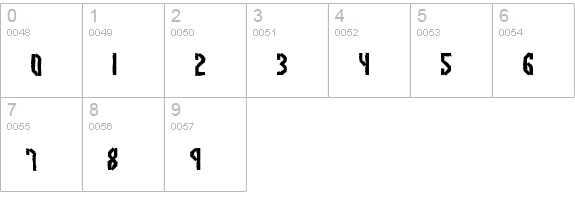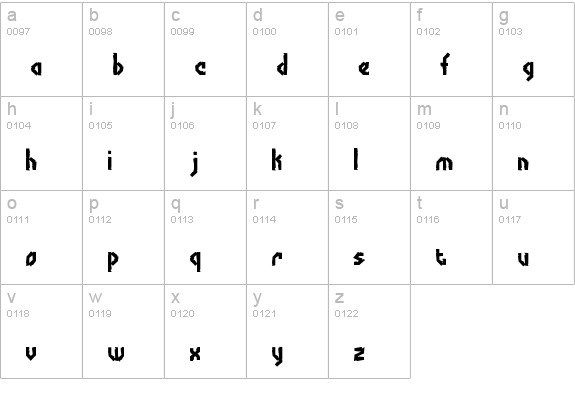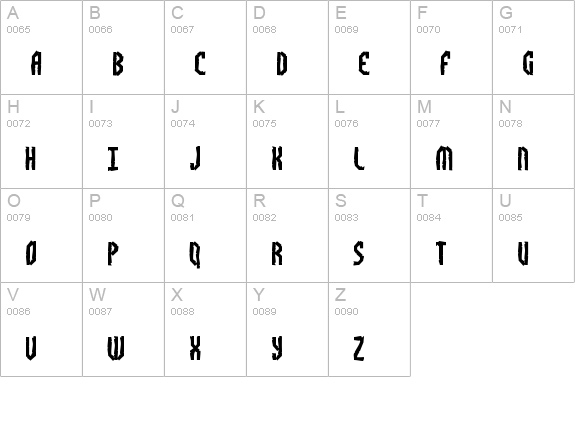
Bocuma Angle Dent BRK Font Details
Bocuma Angle Dent BRK font is a modern and stylish typeface that exudes sophistication and elegance. With its unique angles and sharp edges, this font is perfect for creating eye-catching designs and projects that demand a touch of flair. The bold and sleek letterforms make a strong statement, while the subtle dent details add a hint of texture and depth. One of the best things about Bocuma Angle Dent BRK font is that it is completely free to download. You can easily access this stunning font at FontsMarket.com and enhance your creative projects with its striking appearance. Whether you're designing a logo, poster, or website, Bocuma Angle Dent BRK font is sure to make a lasting impression. Download it now and elevate your designs to the next level.